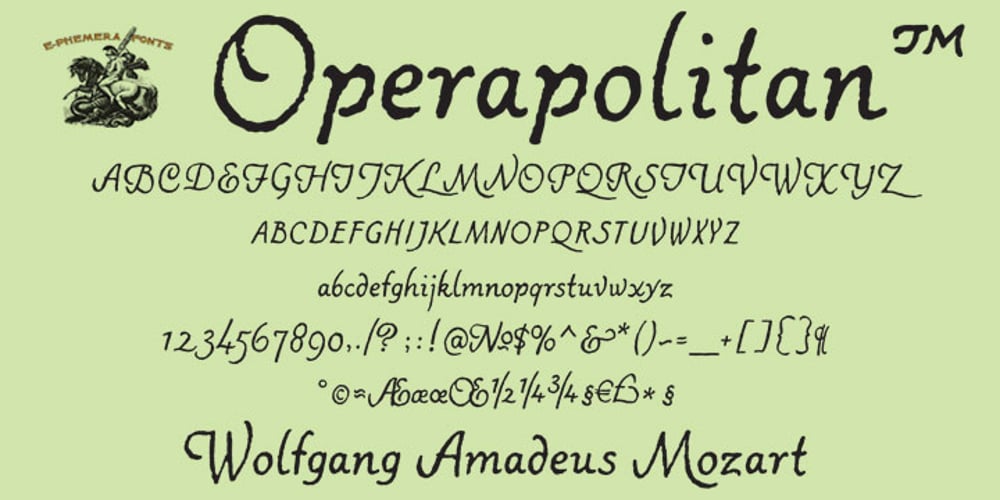
Operapolitan Font Family was designed by Andrew Leman and published by E-phemera. Operapolitan contains 1 styles and family package options. Operapolitan is inspired by a hand-lettered list of board members to a major metropolitan opera company in the 1920s. The font features special ligatures and a complete alternative glyph set meant for use with OpenType contextual alternates to help create the feel of real hand lettering, along with a complete international character set and built-in small capitals. Elegant but not stuffy, the font has rough edges to capture a vintage, slightly-used vibe.